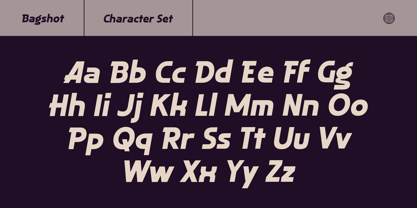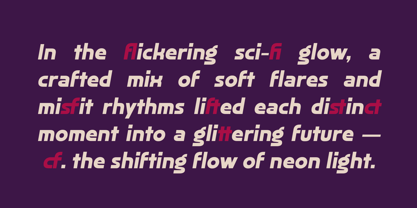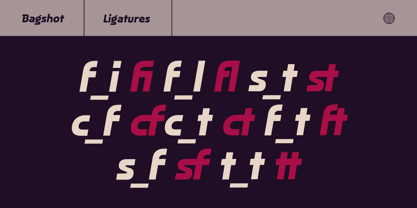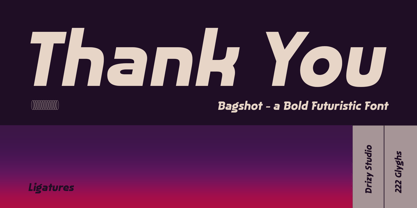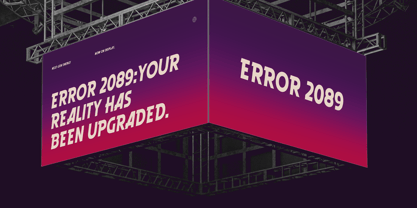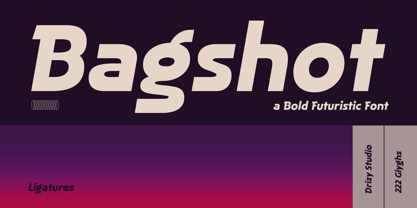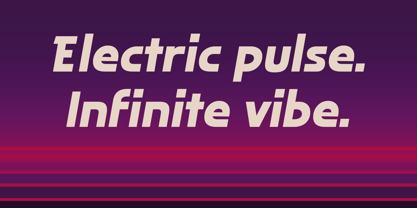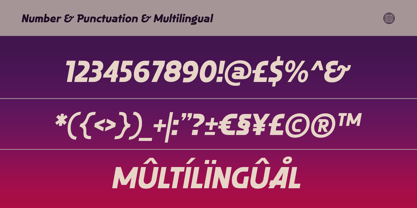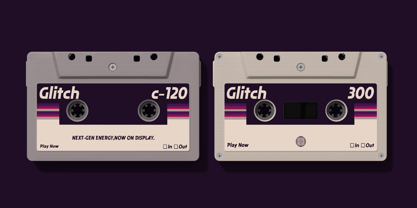
Bagshot
The Bagshot Font Family was designed by Panca Ahmadi Hasan and published by Drizy Font. Bagshot contains 1 styles. More about this family
Bagshot – A Bold Futuristic Font Bagshot is a powerful futuristic typeface built to make an impact. With its bold structure, sharp geometry, and tech-inspired forms, this font delivers a modern sci-fi attitude that feels fast, confident, and forward-thinking. Designed for posters, gaming titles, tech branding, logos, YouTube thumbnails, apparel, and digital interfaces, Bagshot stands out instantly—even at a glance. Its strong presence and clean edges make it perfect for projects that demand energy, innovation, and a cutting-edge aesthetic. Whether you’re creating cyberpunk visuals, esports branding, or high-tech product designs, Bagshot gives your typography a fearless, futuristic voice. Bagshot – A Bold Futuristic Font features: Uppercase & Lowercase Punctuation & Numbers Multilingual Ligatures Elevate and explore the design possibilities with this Italic Y2K Font!